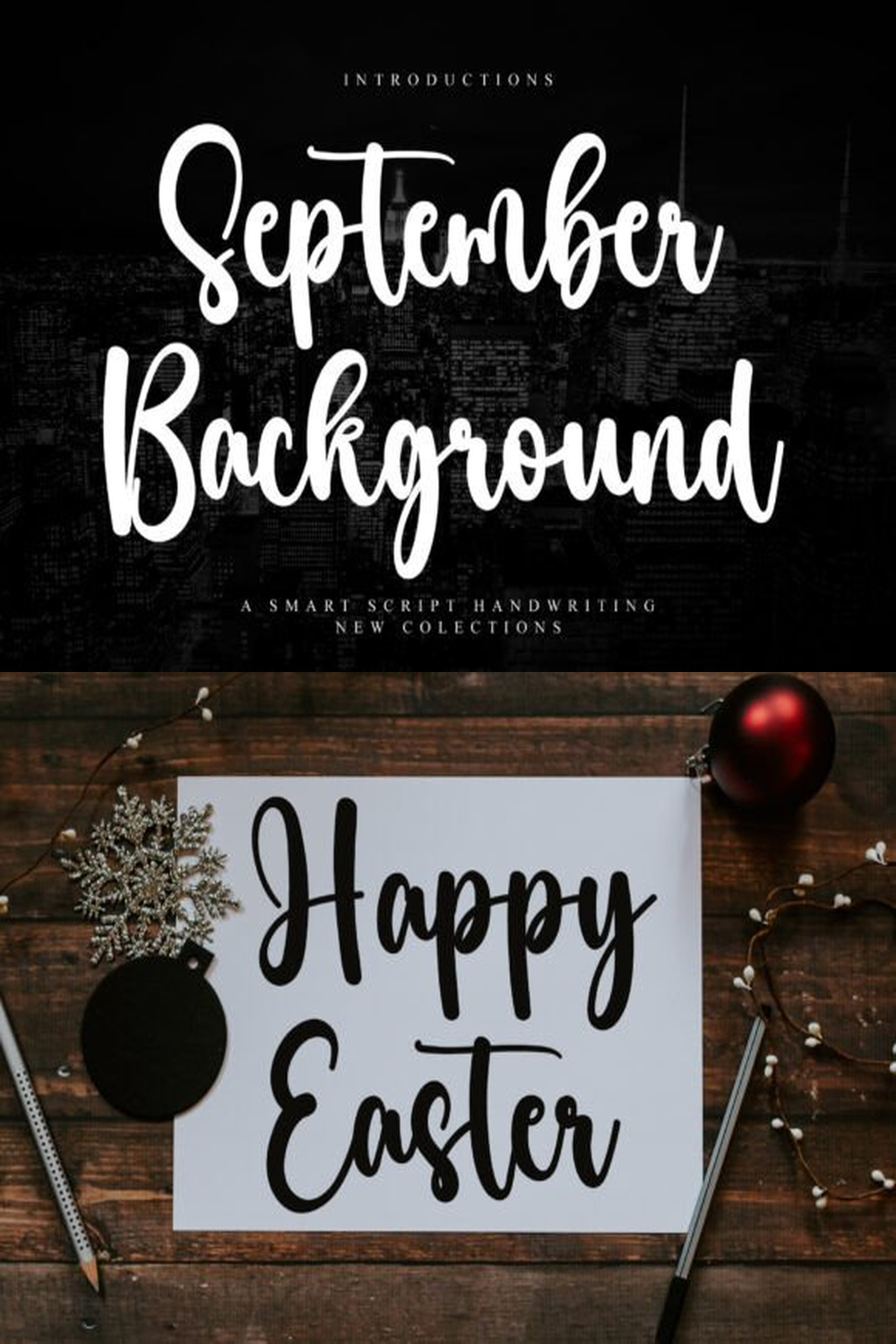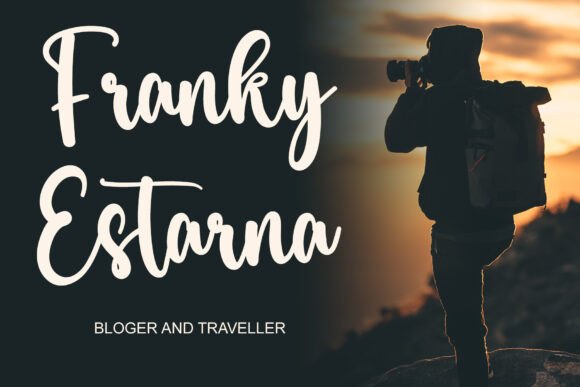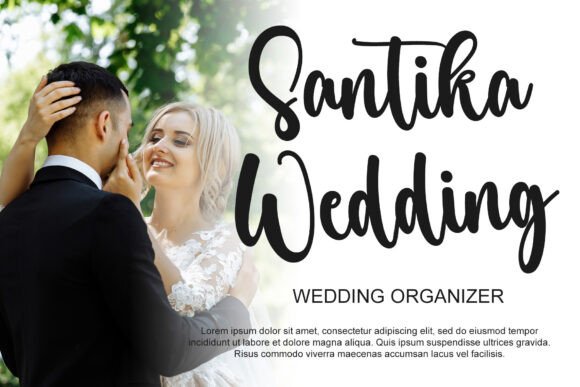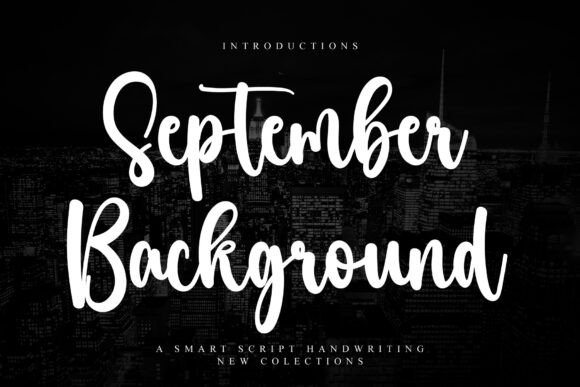
September Background Font
About the September Background Font
Explore the possibilities with September Background Font, a font that offers both beauty and functionality. September Background is a stylish handwritten font with a contemporary atmosphere and impeccable form, inspired by timeless classic calligraphy. Balanced and varied, this font was designed to enhance the beauty of your projects.